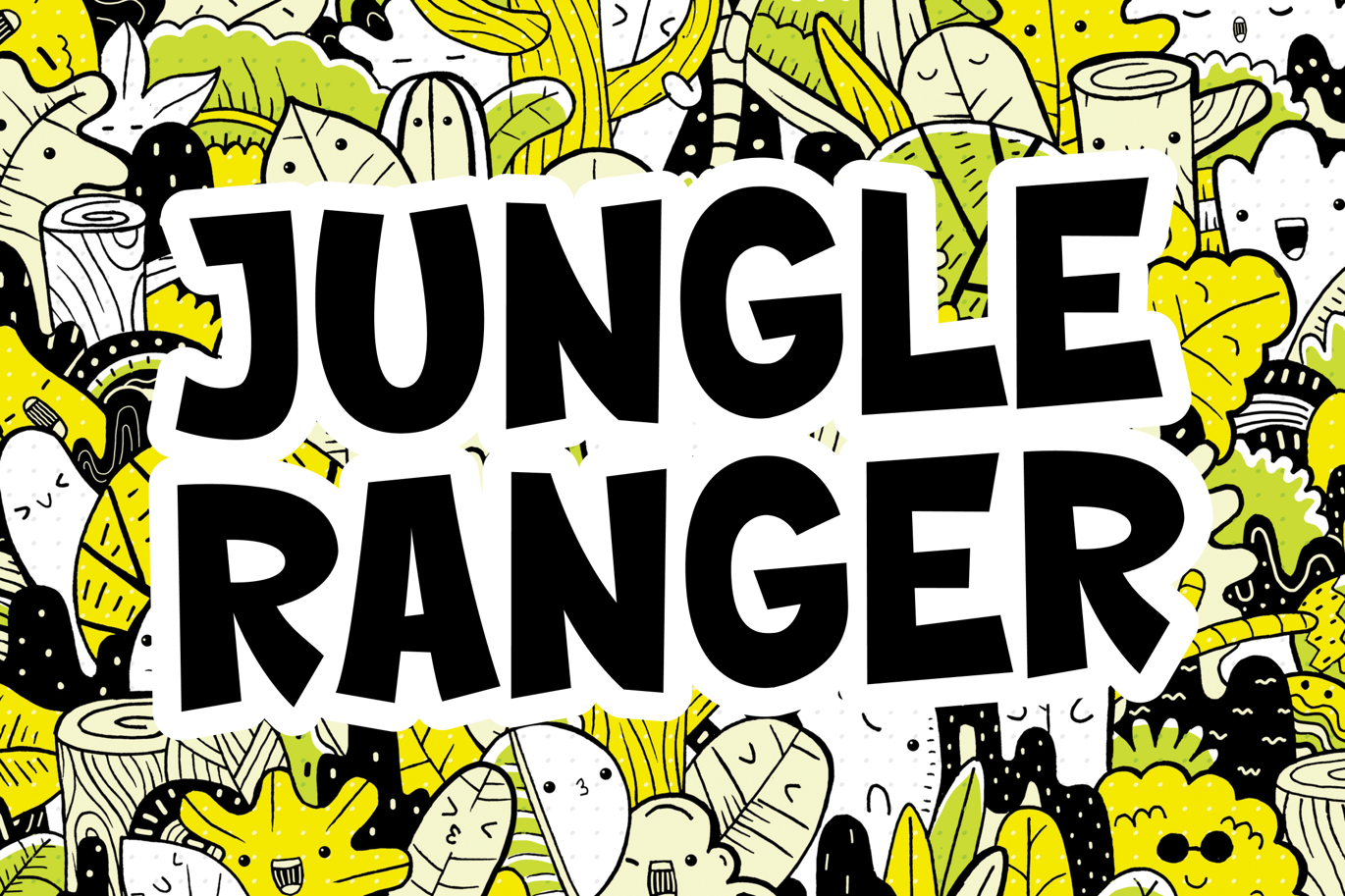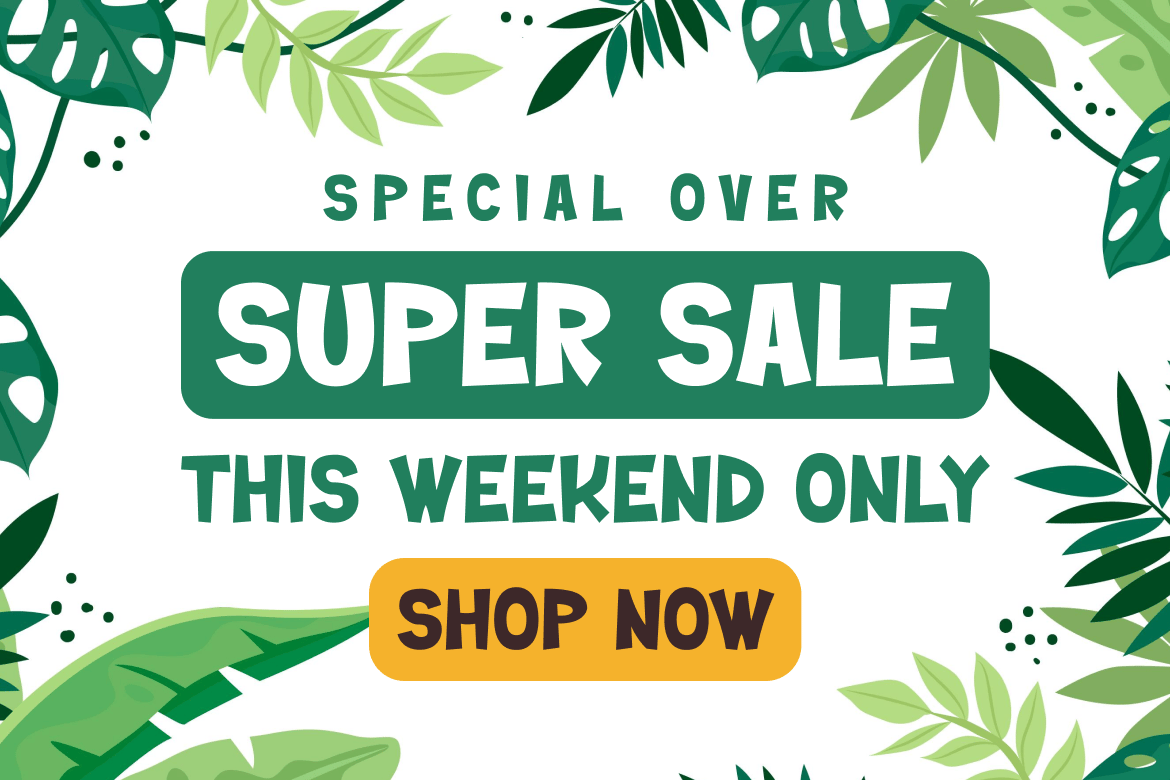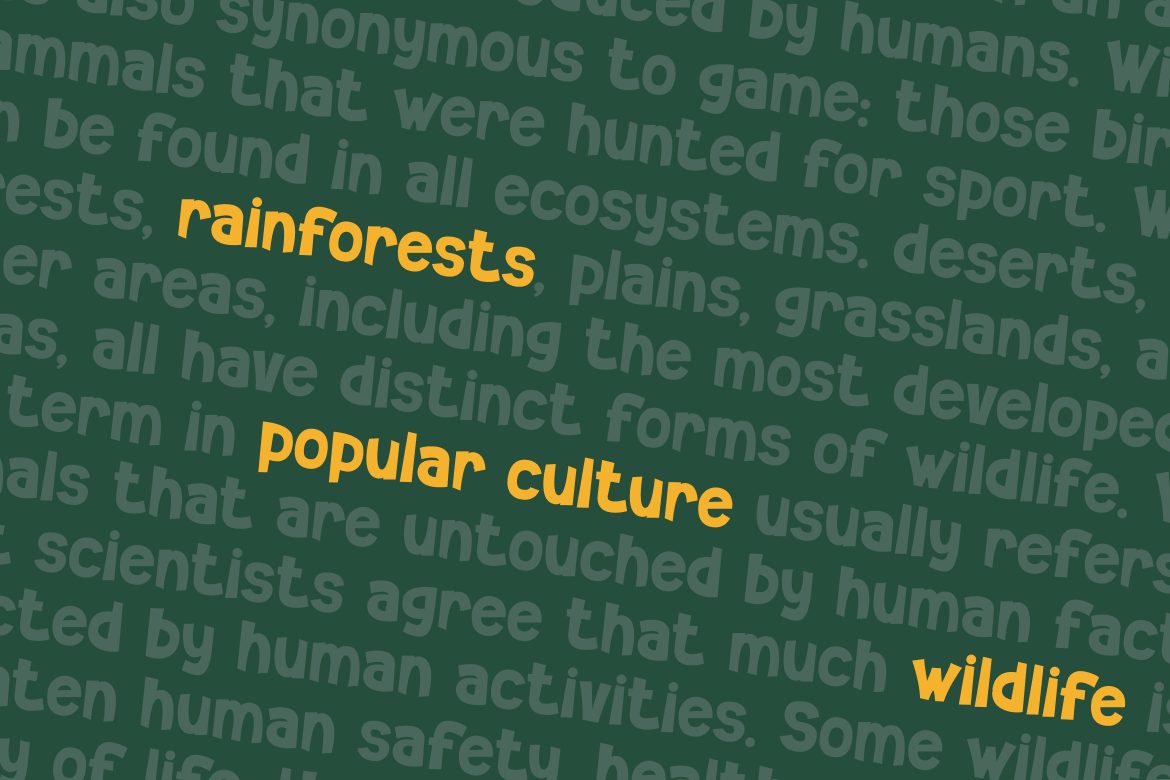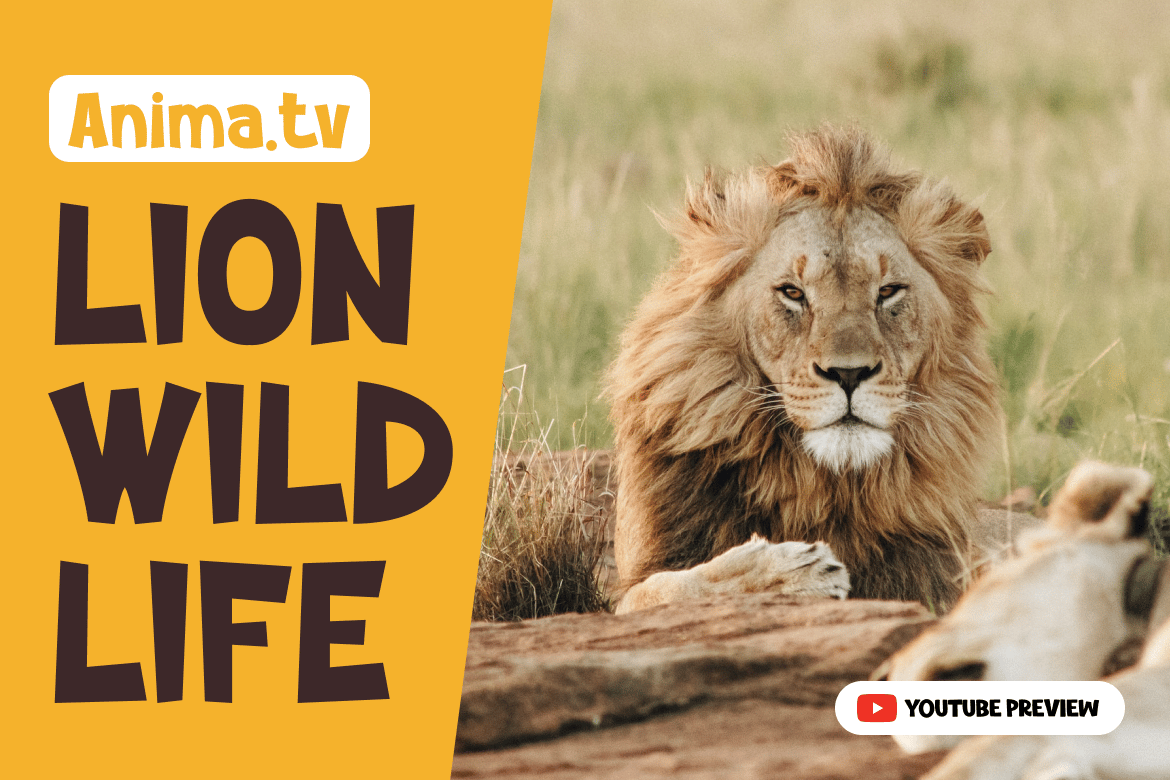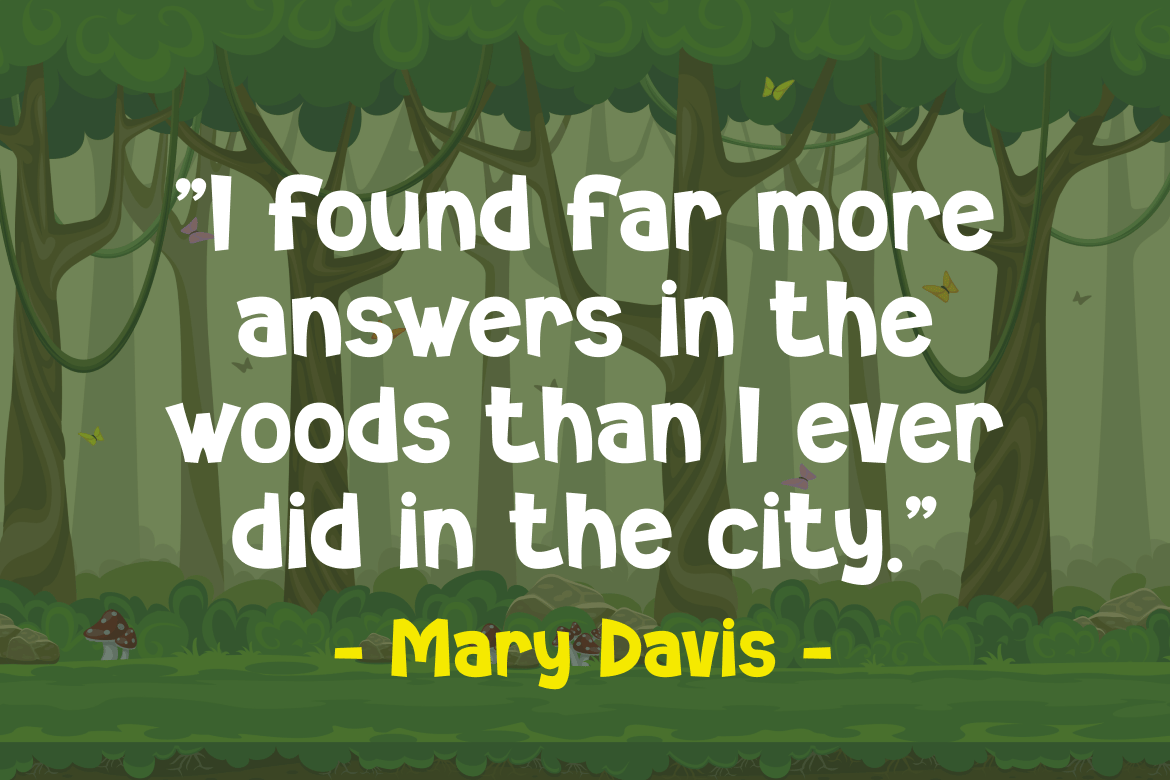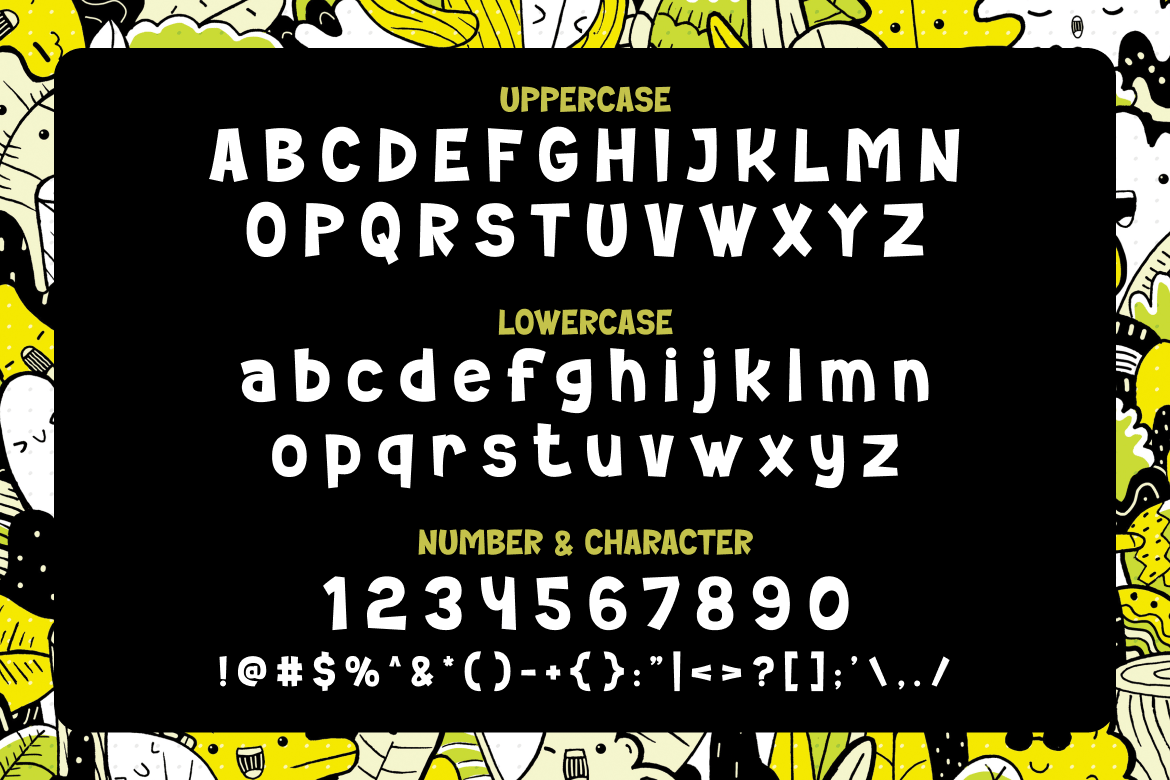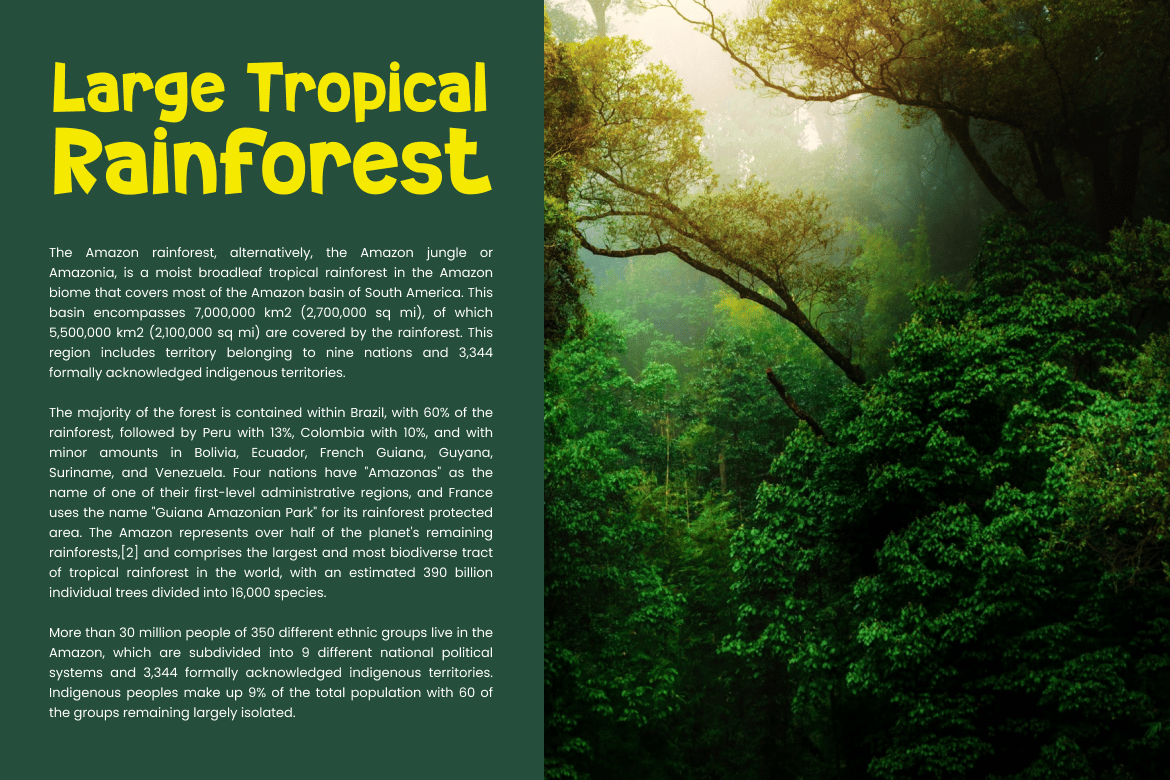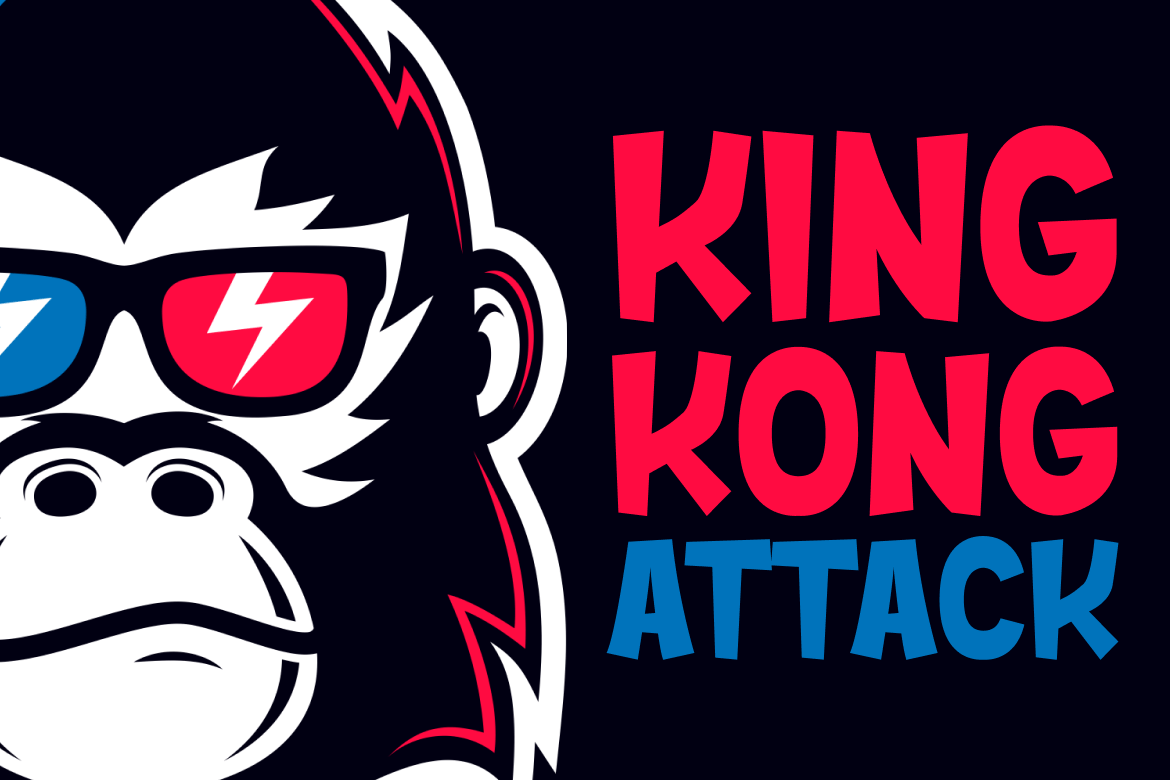
Jungle Ranger – The Playful Gaming Font
Step into the adventure with Jungle Ranger – the playful gaming font perfect for kids and kids at heart. Designed with an adventurous and fun-loving spirit, Jungle Ranger features bold and lively letters that bring a sense of excitement to any gaming or entertainment project. Its jungle-inspired elements, such as leaves and vines, give it a playful and adventurous vibe, making it ideal for games, movies, posters, and more.
Whether you’re creating an online game or a movie title, Jungle Ranger adds a touch of wild fun to your project. Its unique design makes it perfect for adventure games, fantasy movies, and any project that requires a playful and adventurous touch.